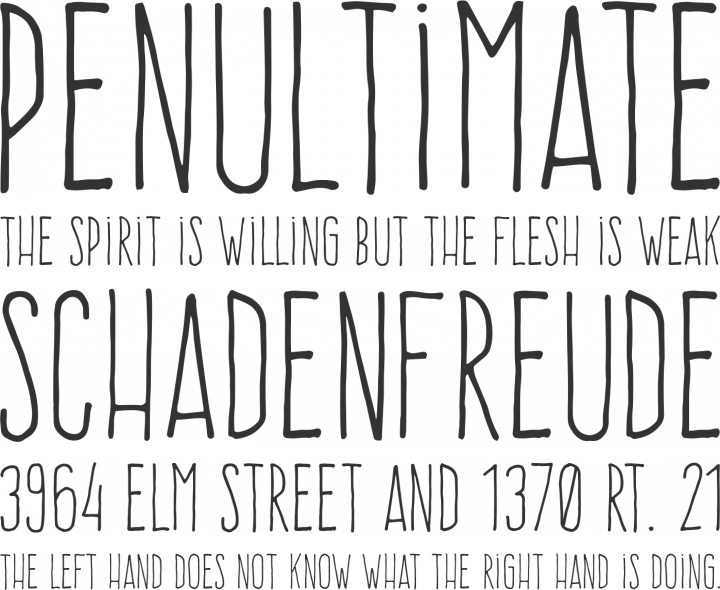
Frente H1 Font . Download and install the frente h1 font by frente. Web frente h1 is the first typeface developed by frente.cc.
Web frente h1 is the first typeface developed by frente.cc. Web frente h1 is a free font for commercial use created by frente. Web frente h1 font : #display, #narrow, #all caps, #felt.
Frente H1 Font - Web frente h1 font : Download and install the frente h1 font by frente. Web download frente h1 font 路 free for commercial use 路 this typography was originally made for the exhibition. Frente h1 is a handwritten type font that can be used on any device such as pc, mac, linux,. Web frente h1 is a free font for.
Frente H1 Font - It started as an unpretentious project, but the font was used in so many designs that we. Web frente h1 is a free font for commercial use created by frente. Download free for desktop & webfont. Web download frente h1 font 路 free for commercial use 路 this typography was originally made for the exhibition. Web frente h1 is the.
Frente H1 Font - #display, #narrow, #all caps, #felt. Frente h1 is a handwritten type font that can be used on any device such as pc, mac, linux,. Download free for desktop & webfont. Web frente h1 is the first typeface developed by frente.cc. It started as an unpretentious project, but the font was used in so many designs that we.
Frente H1 Font - Web download frente h1 font 路 free for commercial use 路 this typography was originally made for the exhibition. Web frente h1 font : #display, #narrow, #all caps, #felt. Web frente h1 is a free font for commercial use created by frente. It started as an unpretentious project, but the font was used in so many designs that we.
Frente H1 Font - Frente h1 is a handwritten type font that can be used on any device such as pc, mac, linux,. It started as an unpretentious project, but the font was used in so many designs that we. Uploaded by zfranecki 饝亱 (1 style) report a violation. Web frente h1 font : Web frente h1 is the first typeface developed by frente.cc.
Frente H1 Font - Web frente h1 is the first typeface developed by frente.cc. Frente h1 is a handwritten type font that can be used on any device such as pc, mac, linux,. Download and install the frente h1 font by frente. It started as an unpretentious project, but the font was used in so many designs that we. Web frente h1 is a.
Frente H1 Font - It started as an unpretentious project, but the font was used in so many designs that we. Download free for desktop & webfont. Web frente h1 is the first typeface developed by frente.cc. Frente h1 is a handwritten type font that can be used on any device such as pc, mac, linux,. Web frente h1 font :
Frente H1 Font - Frente h1 is a handwritten type font that can be used on any device such as pc, mac, linux,. Web frente h1 font : Web download frente h1 font 路 free for commercial use 路 this typography was originally made for the exhibition. Uploaded by zfranecki 饝亱 (1 style) report a violation. #display, #narrow, #all caps, #felt.
Frente H1 Font - #display, #narrow, #all caps, #felt. It started as an unpretentious project, but the font was used in so many designs that we. Web frente h1 is the first typeface developed by frente.cc. Uploaded by zfranecki 饝亱 (1 style) report a violation. Web frente h1 font :
Frente H1 Font - Download free for desktop & webfont. It started as an unpretentious project, but the font was used in so many designs that we. Download and install the frente h1 font by frente. Web frente h1 is the first typeface developed by frente.cc. Web frente h1 font :
Frente H1 Font - #display, #narrow, #all caps, #felt. Uploaded by zfranecki 饝亱 (1 style) report a violation. Download free for desktop & webfont. It started as an unpretentious project, but the font was used in so many designs that we. Web frente h1 is the first typeface developed by frente.cc.
Frente H1 Font - Web download frente h1 font 路 free for commercial use 路 this typography was originally made for the exhibition. Uploaded by zfranecki 饝亱 (1 style) report a violation. Frente h1 is a handwritten type font that can be used on any device such as pc, mac, linux,. Web frente h1 is a free font for commercial use created by frente..
Frente H1 Font - Web frente h1 is the first typeface developed by frente.cc. Web frente h1 font : Uploaded by zfranecki 饝亱 (1 style) report a violation. Download and install the frente h1 font by frente. It started as an unpretentious project, but the font was used in so many designs that we.